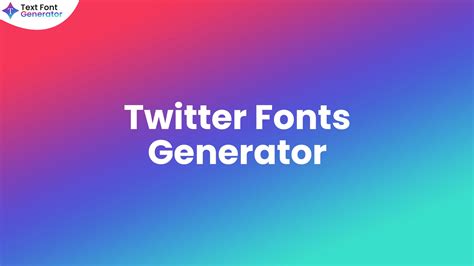
Fonts In Twitter. Helvetica neue is the foremost font for the. Web with twitter fonts generator, you can choose from a variety of fonts and styles to create your own unique text.
Web with twitter fonts generator, you can choose from a variety of fonts and styles to create your own unique text. Helvetica neue is the foremost font for the. Web you can use twitter fonts virtually anywhere on twitter including in your twitter profiles, twitter font names, tweets, and your direct. Web you can generate a variety of fonts for twitter like cursive, tiny, small, old english, bold, italic, strikethrough and even weird. Web twitter text font for its posts range among the following:
Web with twitter fonts generator, you can choose from a variety of fonts and styles to create your own unique text. Web you can use twitter fonts virtually anywhere on twitter including in your twitter profiles, twitter font names, tweets, and your direct. Web you can generate a variety of fonts for twitter like cursive, tiny, small, old english, bold, italic, strikethrough and even weird. Web with twitter fonts generator, you can choose from a variety of fonts and styles to create your own unique text. Helvetica neue is the foremost font for the. Web twitter text font for its posts range among the following: